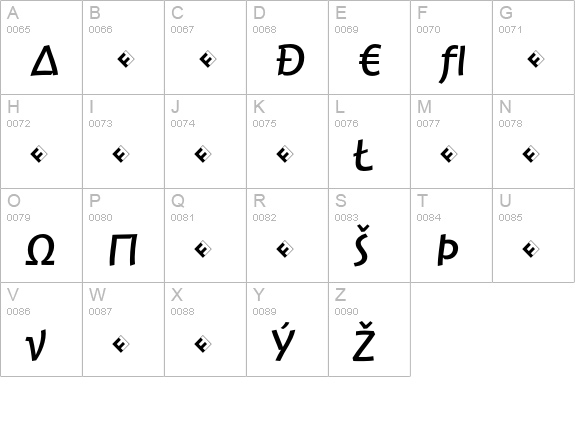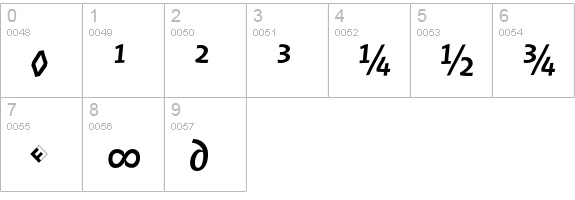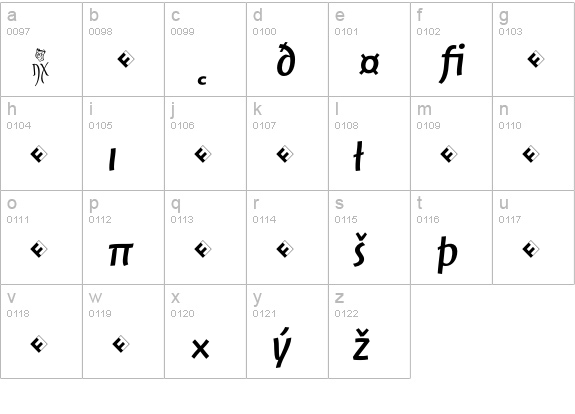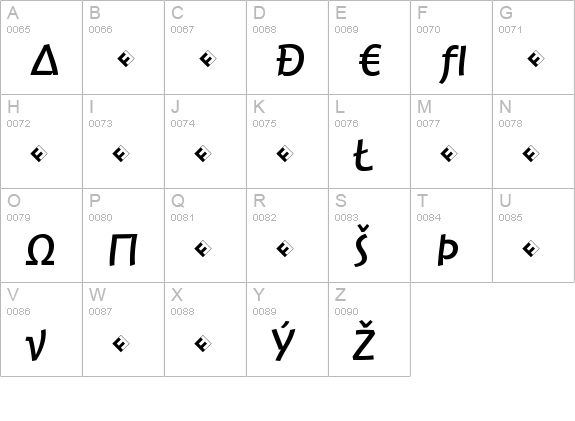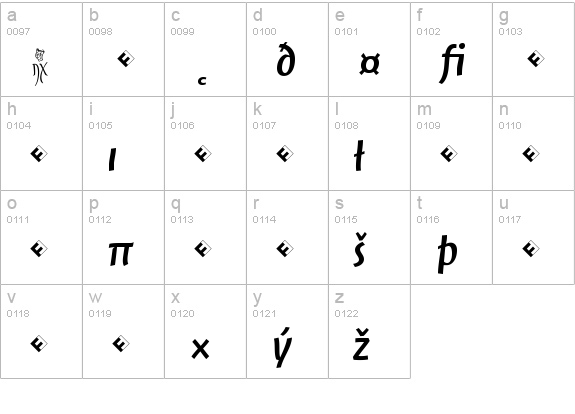
JambonoTF-RegularExpert font is a versatile and elegant typeface that adds a touch of sophistication to any design project. With its clean lines and refined curves, this font is perfect for both digital and print applications. Whether you're working on a logo, website, or marketing materials, JambonoTF-RegularExpert font will make your text stand out with its professional and polished look. What sets JambonoTF-RegularExpert font apart is its expertly crafted details and precise letterforms. Each character is meticulously designed to ensure legibility and visual appeal, making it an ideal choice for both headlines and body text. Its balanced proportions and consistent stroke widths create a harmonious and pleasing reading experience. One of the best features of JambonoTF-RegularExpert font is that it is available for free download at FontsMarket.com. This means that you can enhance your designs without breaking the bank. Whether you're a professional designer or a hobbyist, having access to high-quality fonts like JambonoTF-RegularExpert font can elevate your work to the next level. Not only is JambonoTF-RegularExpert font visually stunning, but it is also highly versatile. It pairs well with a wide range of other typefaces, allowing you to create unique and eye-catching combinations. Whether you prefer a modern or classic aesthetic, JambonoTF-RegularExpert font can adapt to suit your design needs. In addition to its aesthetic qualities, JambonoTF-RegularExpert font is also highly functional. Its clean and clear letterforms ensure easy readability, even at small sizes. This makes it an excellent choice for projects that require attention to detail and legibility, such as annual reports, brochures, and presentations. Overall, JambonoTF-RegularExpert font is a must-have for any designer looking to add sophistication and elegance to their work. Its timeless design, versatility, and free availability for download at FontsMarket.com make it a valuable addition to your font library. So why wait? Enhance your designs with JambonoTF-RegularExpert font today and elevate your work to new heights.